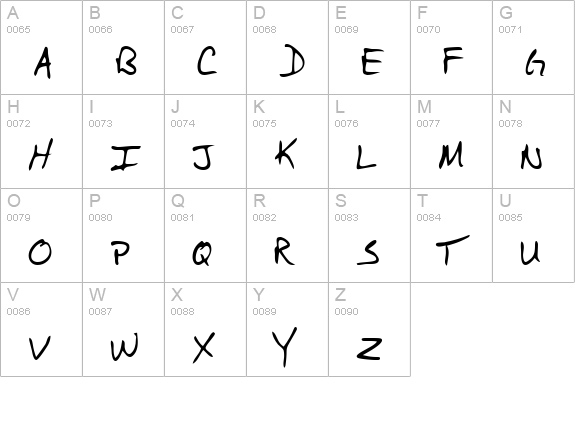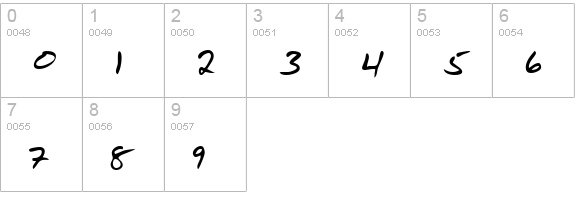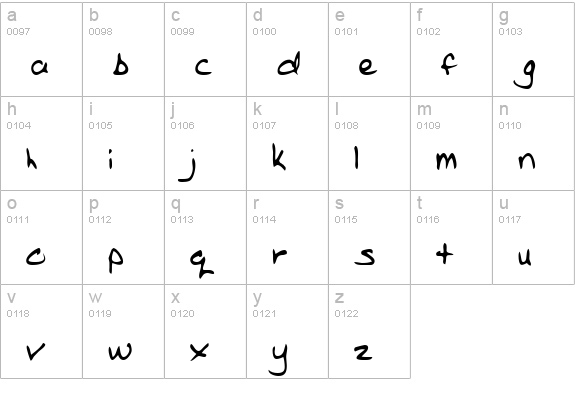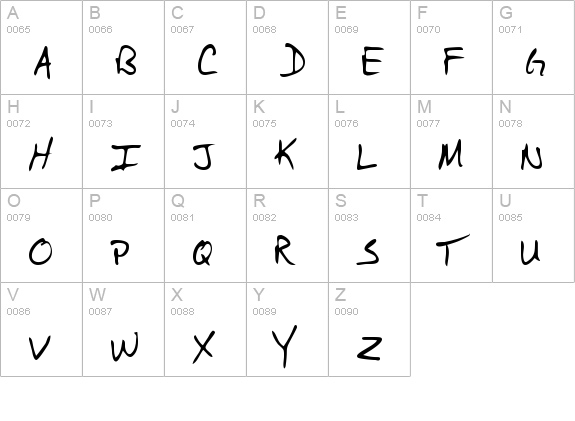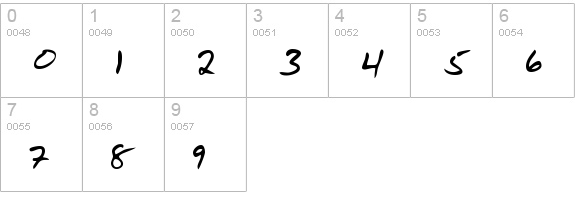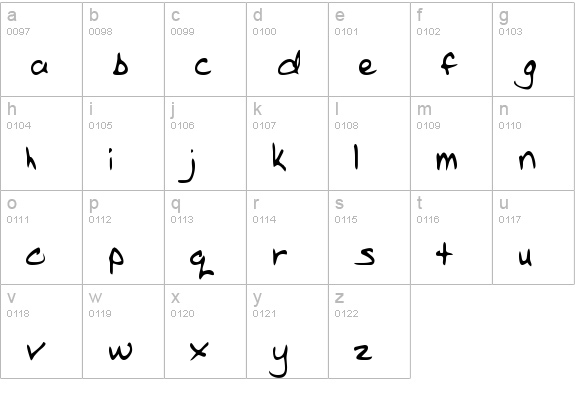
StewartsHand Regular is the standard, neutral variant in the StewartsHand typeface family \xE2\x80\x94 well suited to general body text, paragraphs, and standard typographic work.
StewartsHand Regular font is a charming and versatile typeface that exudes a sense of warmth and friendliness. With its handwritten appearance and playful curves, this font is perfect for adding a personal touch to any project. Whether you're designing greeting cards, invitations, or social media graphics, StewartsHand Regular is sure to make your text stand out. Best of all, StewartsHand Regular is available for free download at FontsMarket.com. This means that you can easily access this lovely font and use it in your designs without any cost. Don't miss out on the opportunity to enhance your projects with the unique style of StewartsHand Regular - download it today and let your creativity flow!